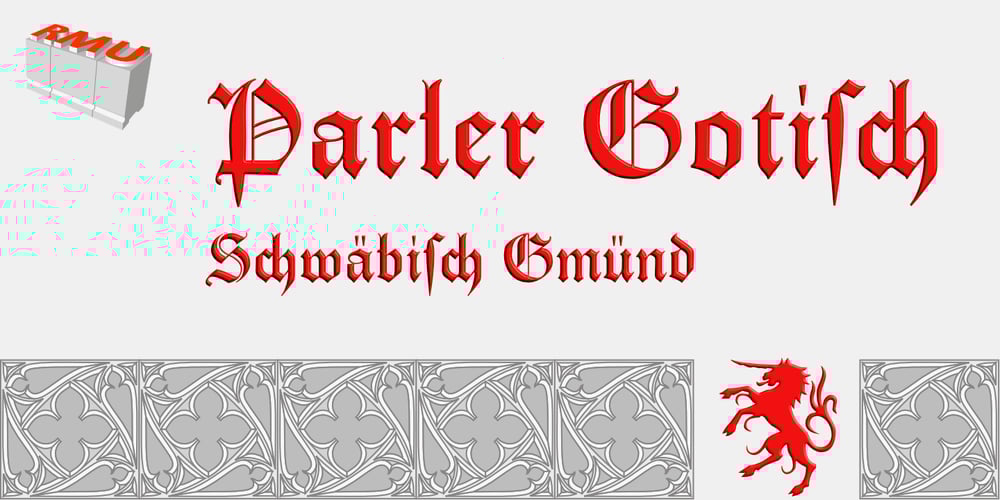
Parler Gotisch Font Family was designed by Ralph M. Unger and published by RMU. Parler Gotisch contains 1 styles and family package options. A gothic blackletter font named after the Parler master builder family which built the Schwaebisch Gmuend cathedral. This font contains a bunch of useful ligatures, and by typing ‘N’, ‘o’ and period plus activating the Ordinals feature you get an oldstyle numbersign. In this blackletter font the # key is occupied by the ’round’ s.